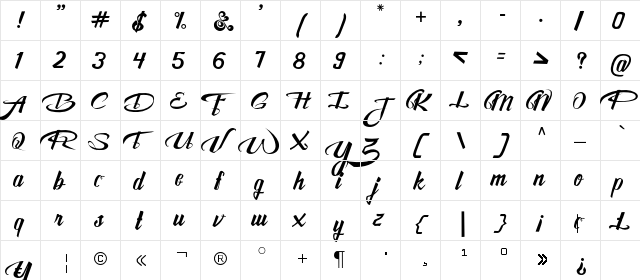
| Style | Awesome Free Font |
| Foundry | feydesign |
| Designer | feydesign |
Design Context for Awesome Free Font Typeface
Awesome Free Font is a composed and adaptable typeface that performs quietly and consistently across a wide range of design contexts.